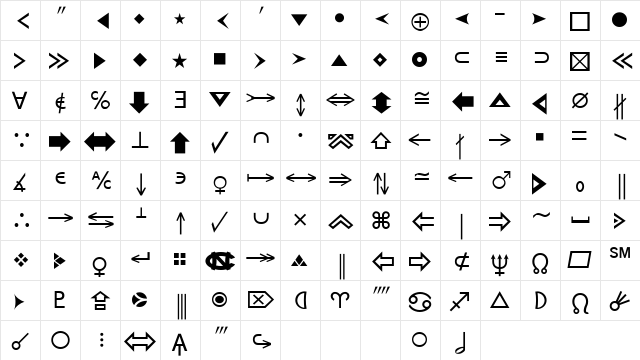
Freebats Regular
Design Context for Freebats Typeface
Freebats is a composed and adaptable typeface that performs quietly and consistently across a wide range of design contexts.